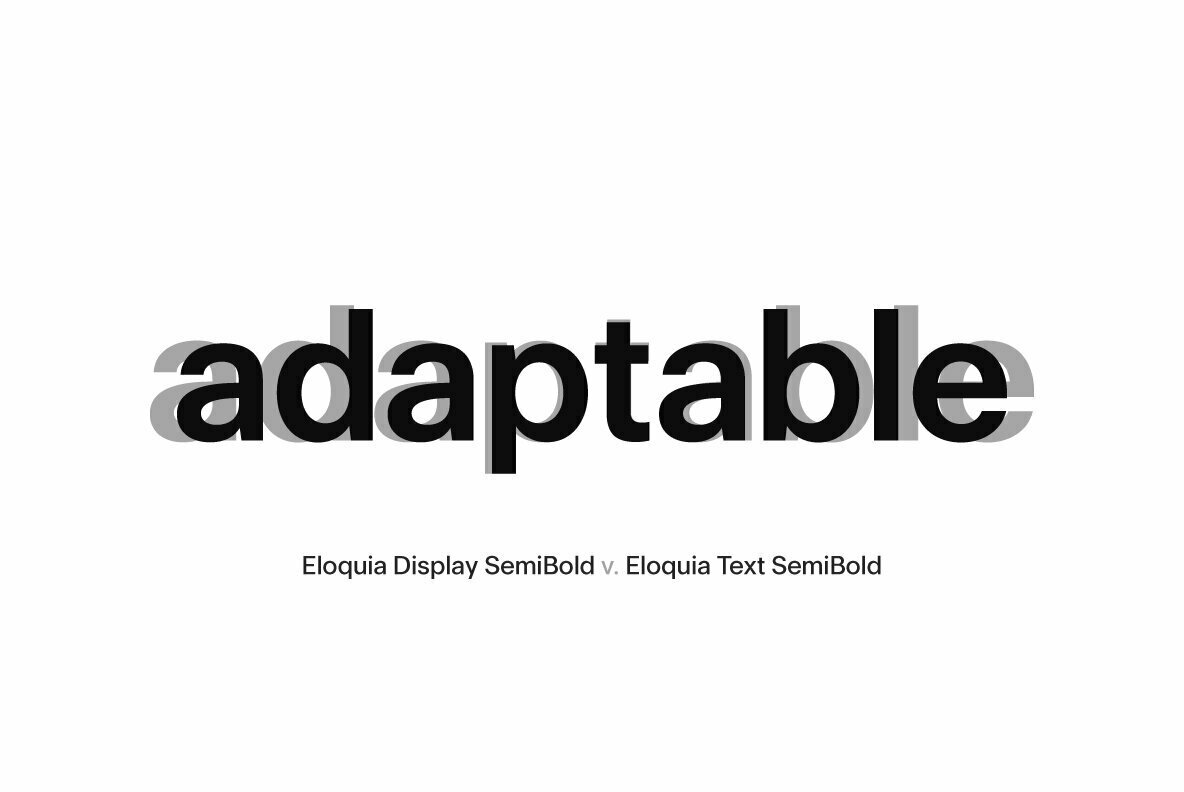
Eloquia Font
Eloquia is a neo-grotesque sans serif type family with geometric roots. Though it's a neutral typeface the unmistakable influence of geometric shapes gives it warmth and a unique flavor. With 34 fonts in total, Eloquia comes in two distinct optical sizes, Text and Display. The Display styles are spaced tightly keeping headlines in mind while the Text styles feature larger x-height and wider apertures with loose spacing making them highly legibility at small sizes.